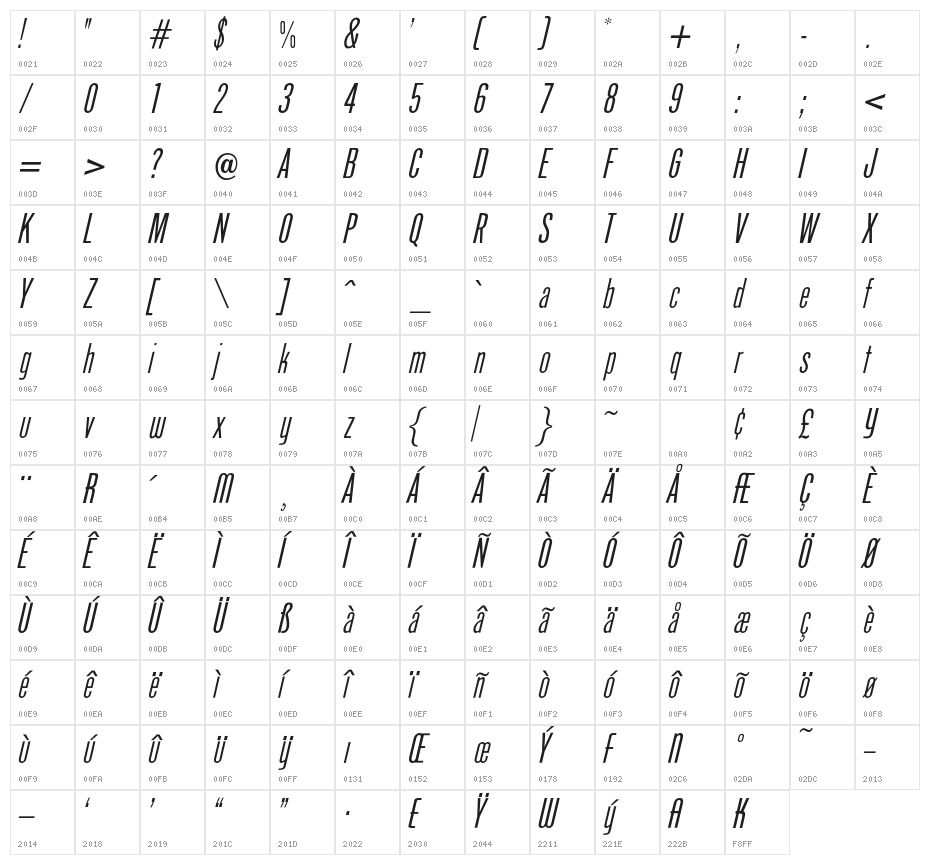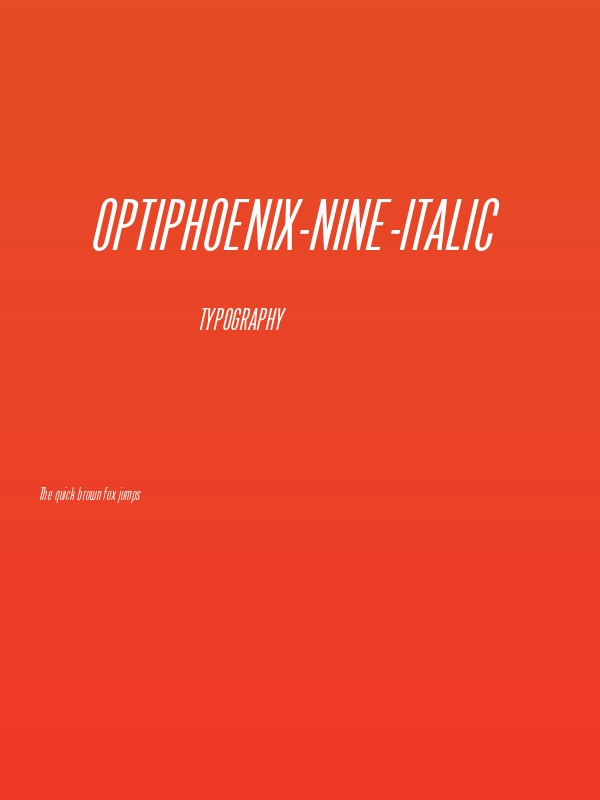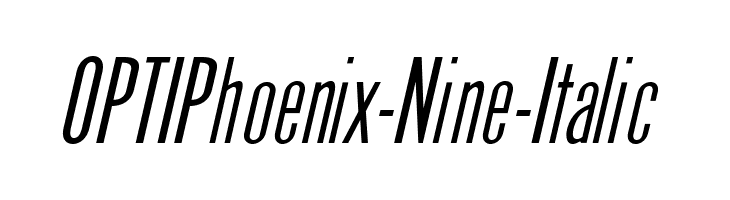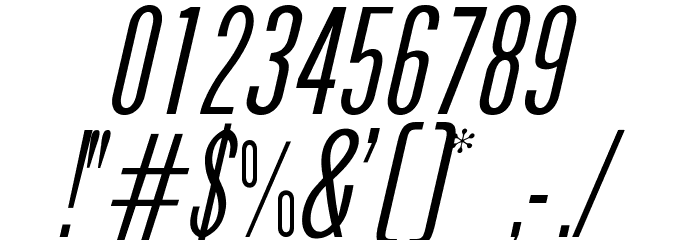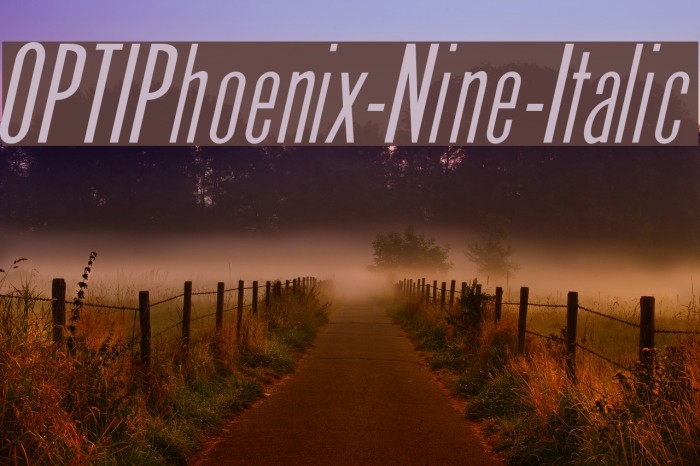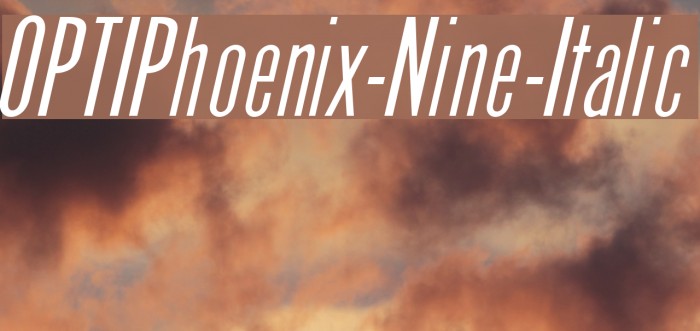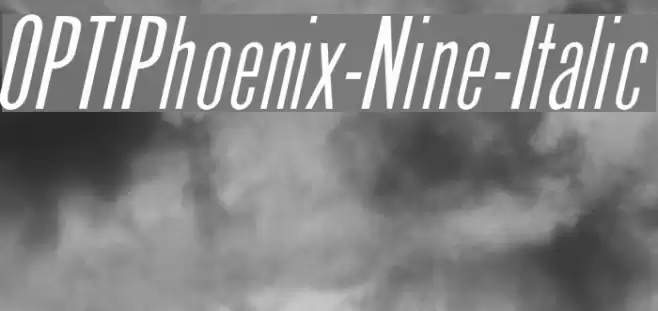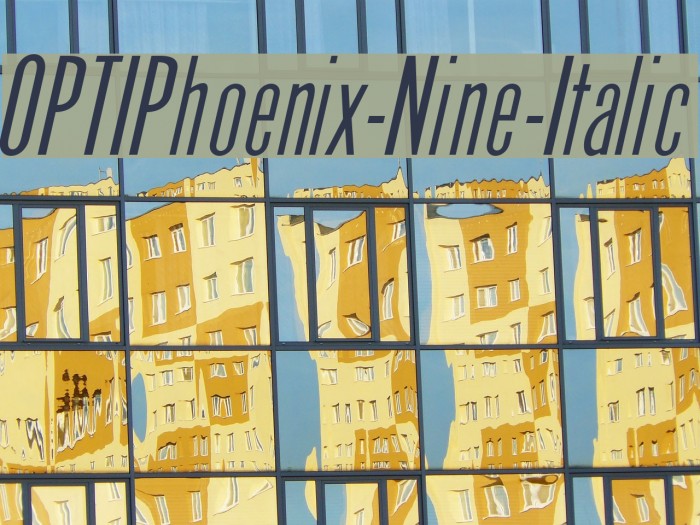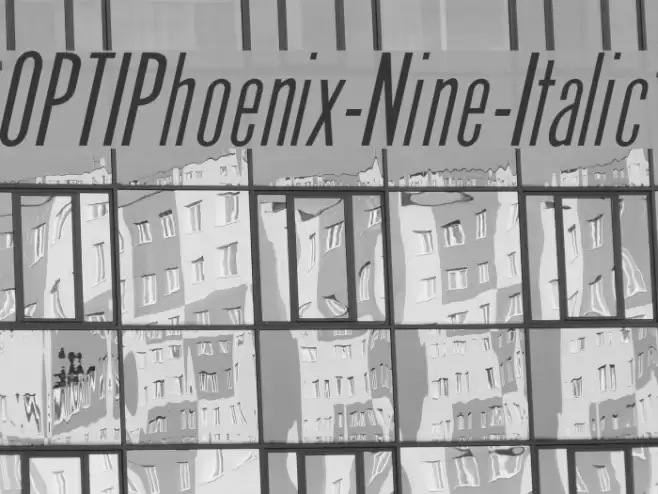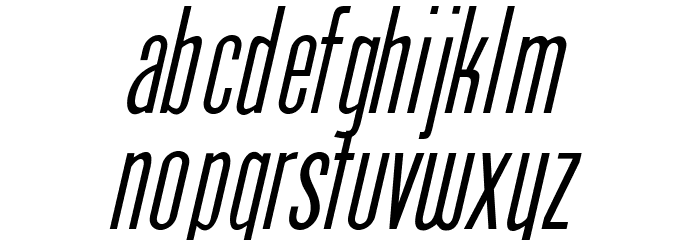
OPTIPhoenix-Nine-Italic Font
OPTIPhoenix-Nine-Italic Description
This font features a sleek, italicized design with elongated, narrow characters that convey a sense of speed and modernity. The letters are slightly condensed, enhancing the dynamic appearance. The strokes are consistent in thickness, offering a medium contrast that maintains readability while adding a stylish flair. The overall look is contemporary, making it suitable for projects that require a touch of elegance and sophistication. The font includes a full set of uppercase and lowercase letters, numbers, and a variety of special characters, ensuring versatility for different design needs.
| Proposed Projects | Ideal for branding, advertising, and editorial design projects that require a modern and dynamic aesthetic. |